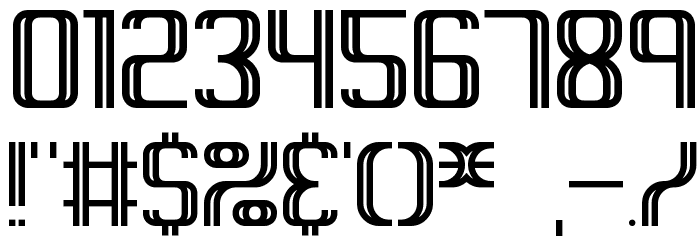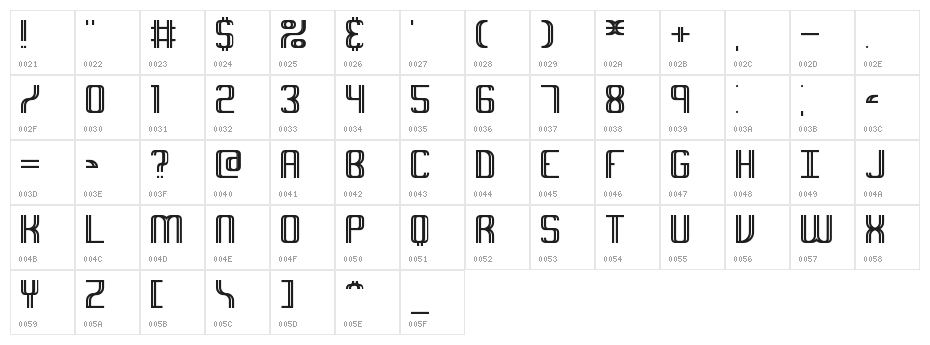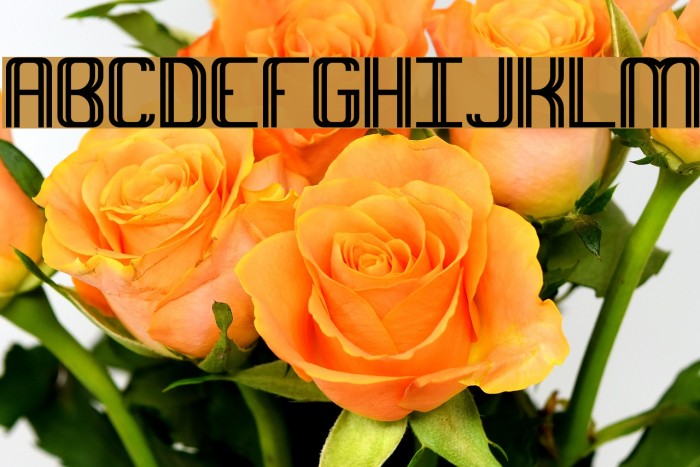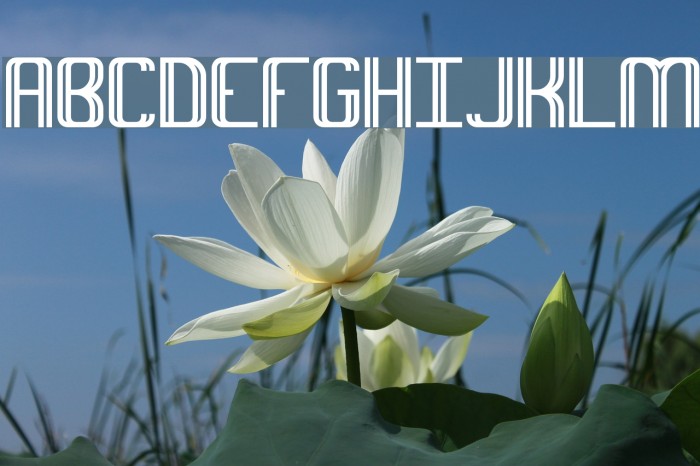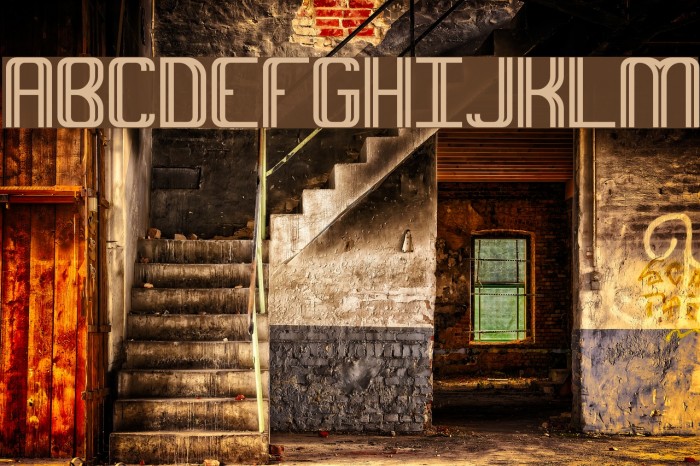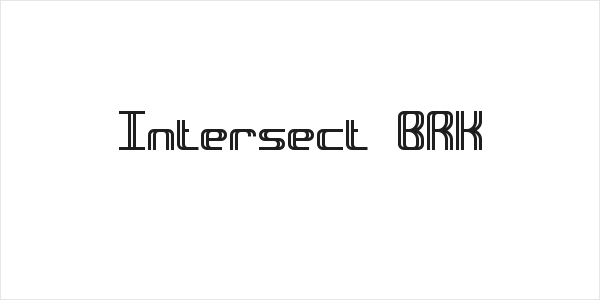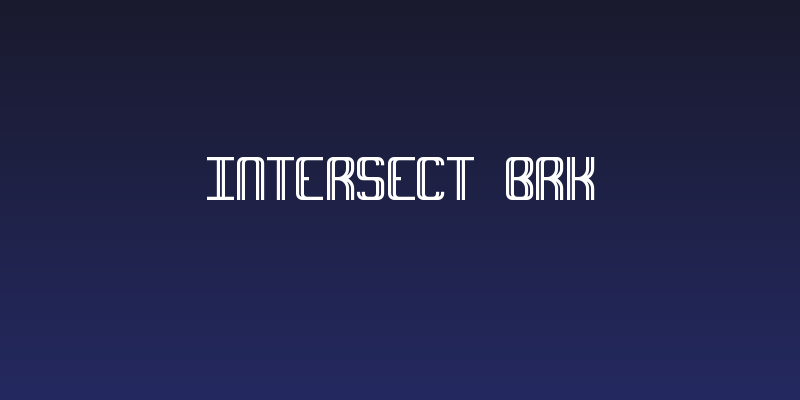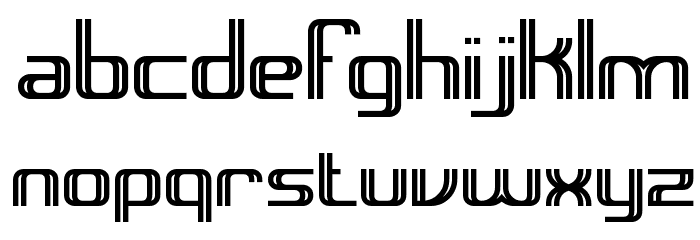
Intersect BRK Font
Intersect BRK Description
This font features a unique, futuristic design with a geometric structure. The characters are composed of intersecting lines that create a sense of movement and depth. The uppercase and lowercase letters maintain a consistent style, with rounded edges and a uniform line thickness that gives a modern and sleek appearance. The numerals and special characters follow the same design principles, ensuring a cohesive look across all elements. This font is ideal for projects that require a contemporary and innovative touch.
| Proposed Projects | Ideal for tech branding, modern posters, digital interfaces, and innovative product packaging. |